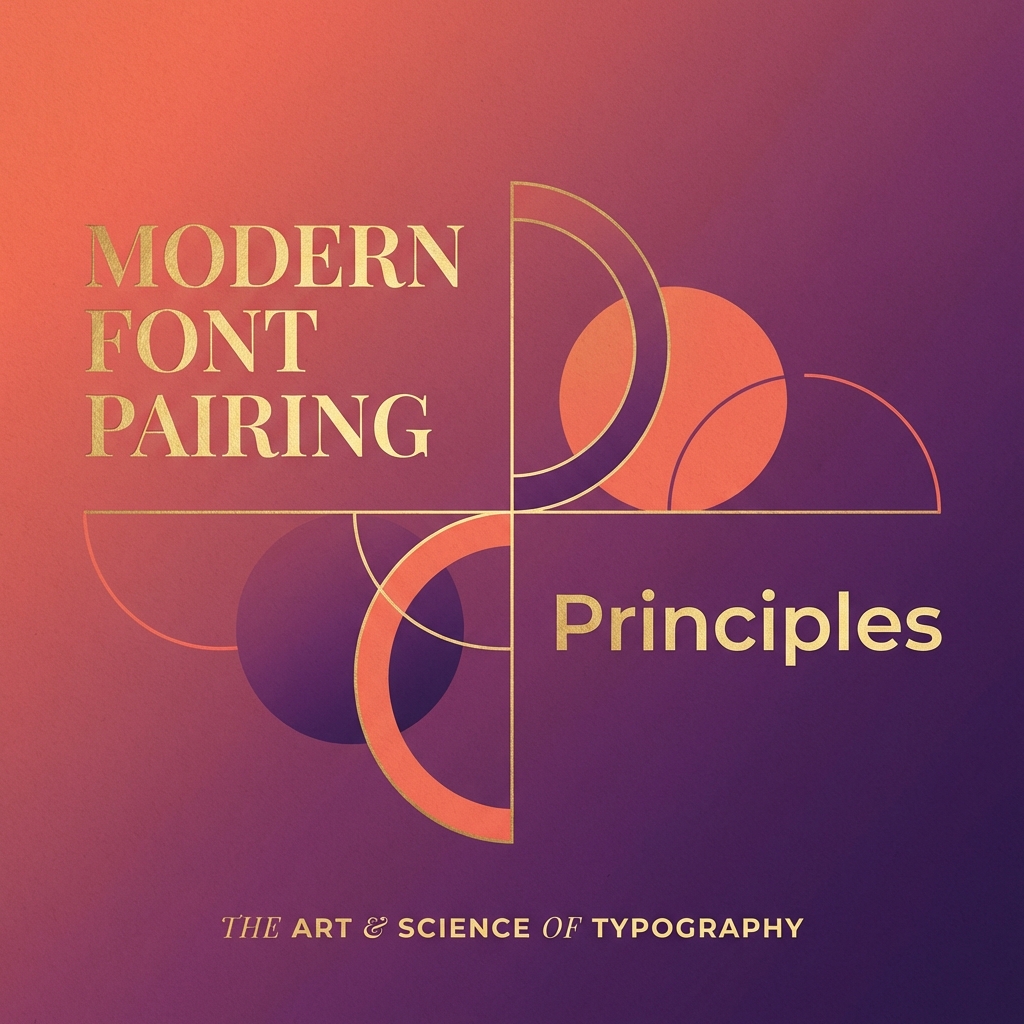
Great font pairings don't happen by accident. They're built on fundamental design principles that create visual hierarchy, establish mood, and guide the reader's eye. This guide breaks down the science and art of combining typefaces.
Font pairing creates:
Poor pairings cause confusion, reduce readability, and dilute brand identity.
Successful pairings balance two opposing forces:
Think of it like music: you want distinct instruments (contrast) playing in the same key (harmony).
The most reliable pairing strategy. Serif fonts for headings provide elegance and authority; sans-serif body text offers clean readability:
Heading: Playfair Display (serif)
Body: Inter (sans-serif)
Why it works: Clear visual distinction with complementary personalities.
Examples:
Use the same font family with dramatically different weights:
Heading: Montserrat Black (900)
Body: Montserrat Regular (400)
Why it works: Maximum harmony (same family) with clear hierarchy (weight contrast).
Best for: Minimalist designs, modern brands, single-font systems.
Pair a geometric sans-serif (circular, precise) with a humanist sans-serif (organic, calligraphic):
Heading: Futura (geometric)
Body: Gill Sans (humanist)
Why it works: Both are sans-serif (harmony) but have distinct personalities (contrast).
Use an expressive display font for headings paired with a neutral workhorse for body text:
Heading: Bebas Neue (display)
Body: Source Sans Pro (neutral)
Why it works: Display font grabs attention; neutral font stays out of the way.
Warning: Display fonts should be used sparingly—headings and accents only.
Fonts with similar x-heights (the height of lowercase letters) feel more cohesive:
Good: Lato (large x-height) + Merriweather (large x-height)
Awkward: Didot (small x-height) + Verdana (large x-height)
Fonts carry historical and emotional associations. Pair fonts from similar eras or with compatible moods:
Classic pairing: Garamond (Renaissance) + Futura (Bauhaus)
Modern pairing: Inter (contemporary) + Space Grotesk (contemporary)
Mood matching:
Ideal: 1 heading font + 1 body font
Maximum: 1 display + 1 heading + 1 body
More fonts create visual chaos and performance issues.
Use size, weight, and spacing to create distinct levels:
Use fonts designed to work together:
Advantage: Guaranteed harmony with built-in contrast options.
Use a single variable font with different axis settings:
Pair fonts with complementary optical sizes:
Heading: Display optical size (large)
Body: Text optical size (small)
Some variable fonts include an opsz axis for this.
Bad: Helvetica + Arial (nearly identical)
Good: Helvetica + Georgia (clear contrast)
Bad: Blackletter + Comic Sans (clashing personalities)
Good: Playfair Display + Lato (complementary personalities)
A pairing that works for a wedding invitation won't work for a tech startup. Consider your audience and purpose.
Display fonts are designed for large sizes. Using them for body text reduces readability.
Font pairing is both art and science. Start with proven strategies—serif + sans-serif, contrasting weights, superfamilies—then refine based on your brand and content. The best pairings feel effortless because they balance contrast with harmony, creating visual interest while maintaining cohesion.